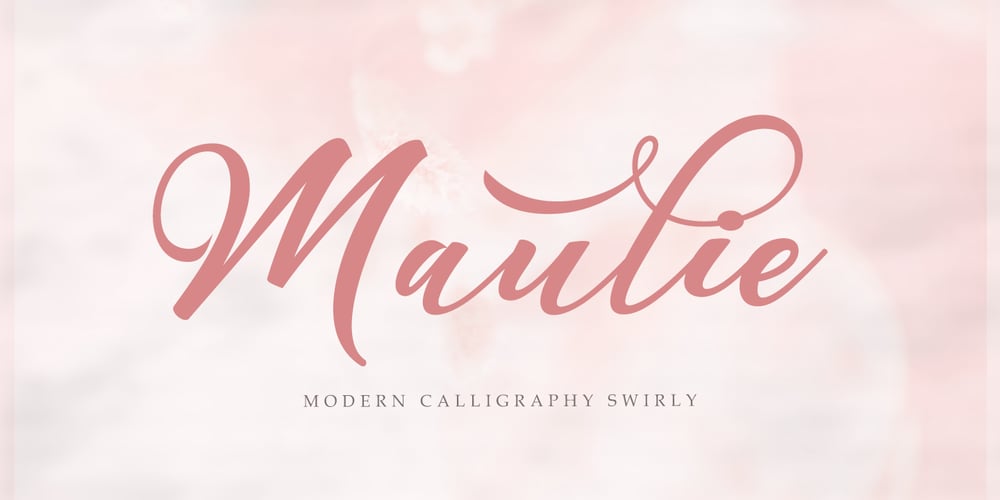
Maulie Script Font Family was designed by khaidir and published by Gatype. Maulie Script contains 1 styles and family package options. Introducing the new elegant Maulie Script! For those of you who need a touch of elegance combining classic style with modern calligraphy style for your design, this font is made for you!Whats INCLUDED?Maulie Script was built with OpenType features and includes initial and ending stylistics, alternative characters for most lowercase letters, numbers, punctuation, alternatives, ligature and also supports other languages. There are more than 404 glyphs in this font.